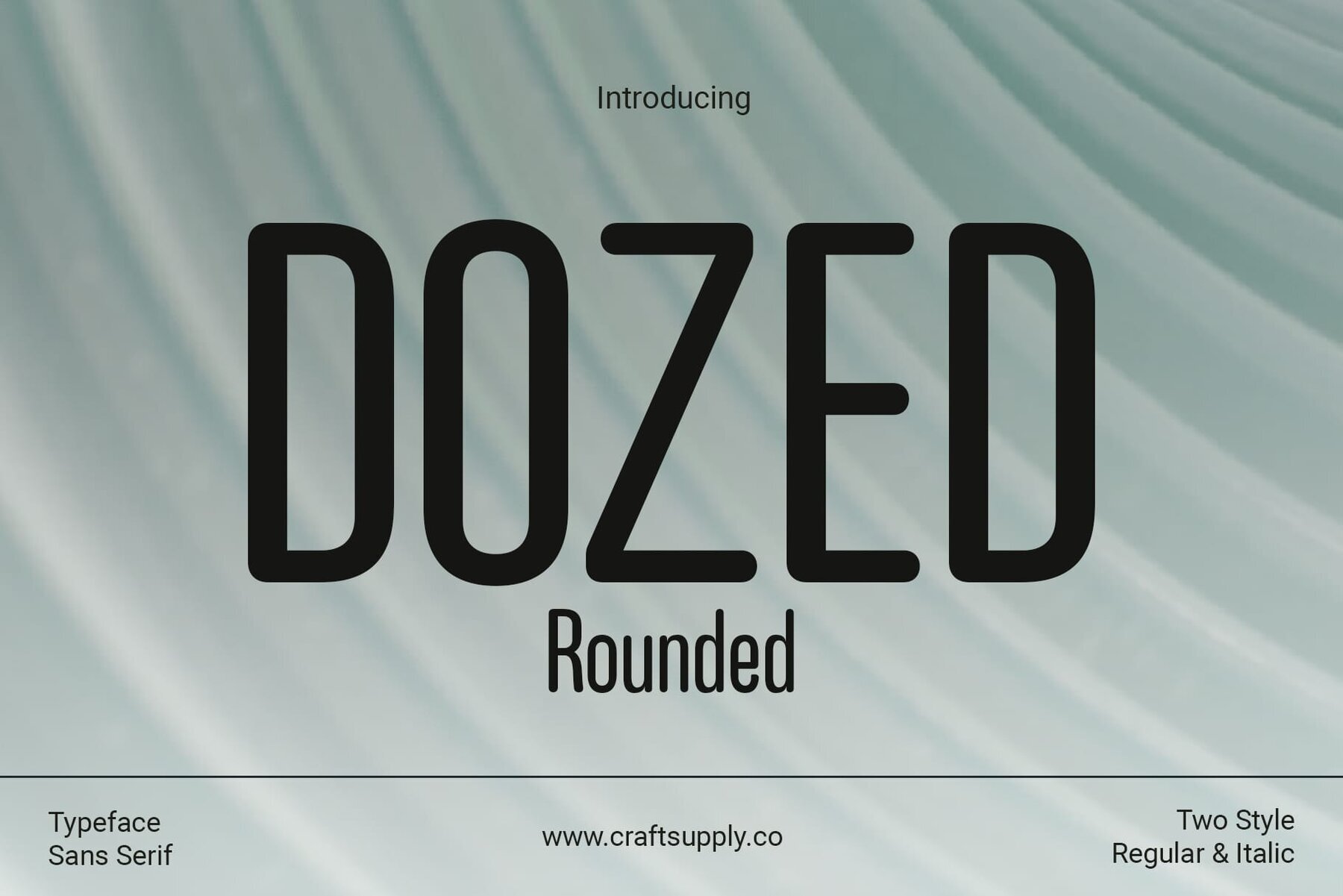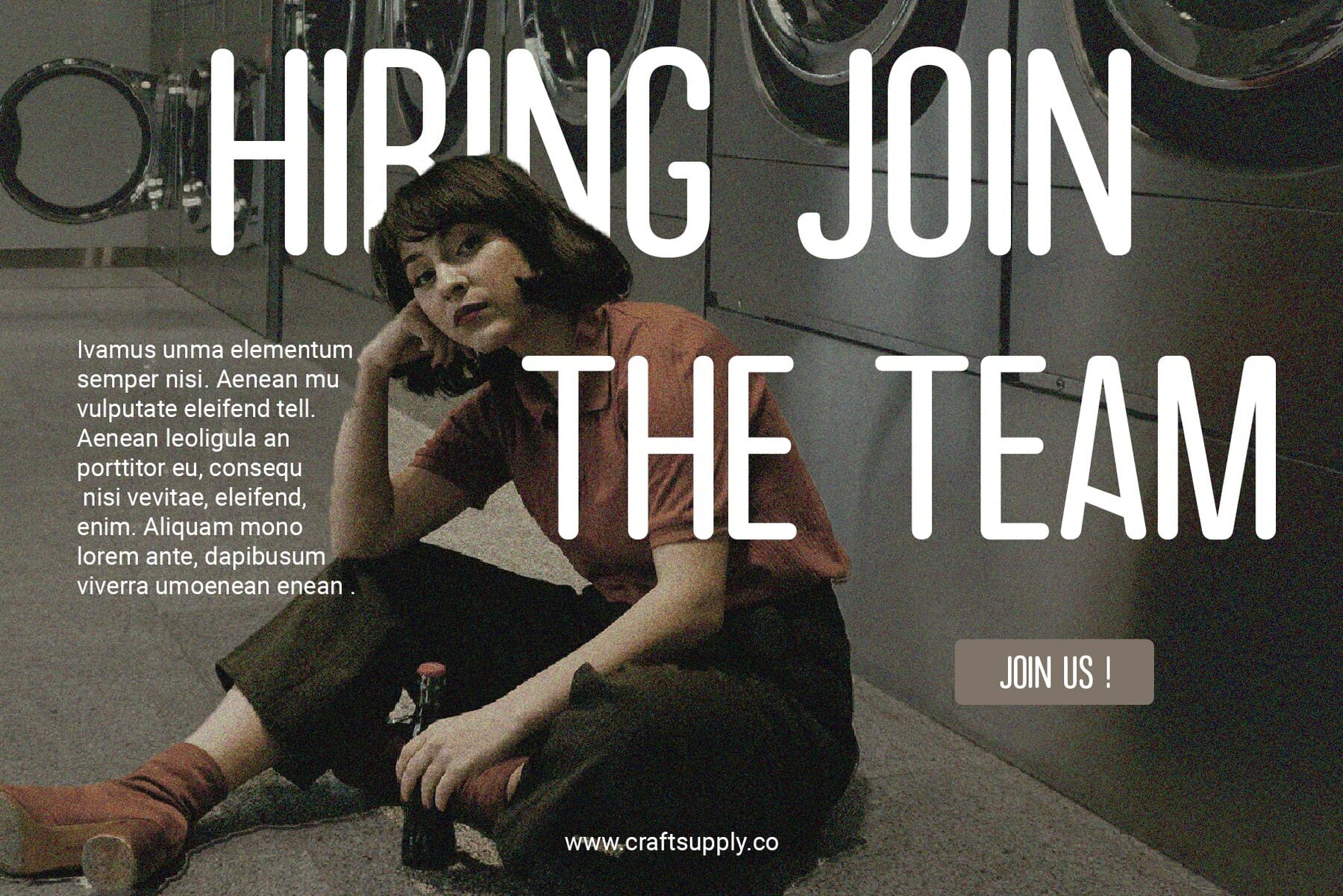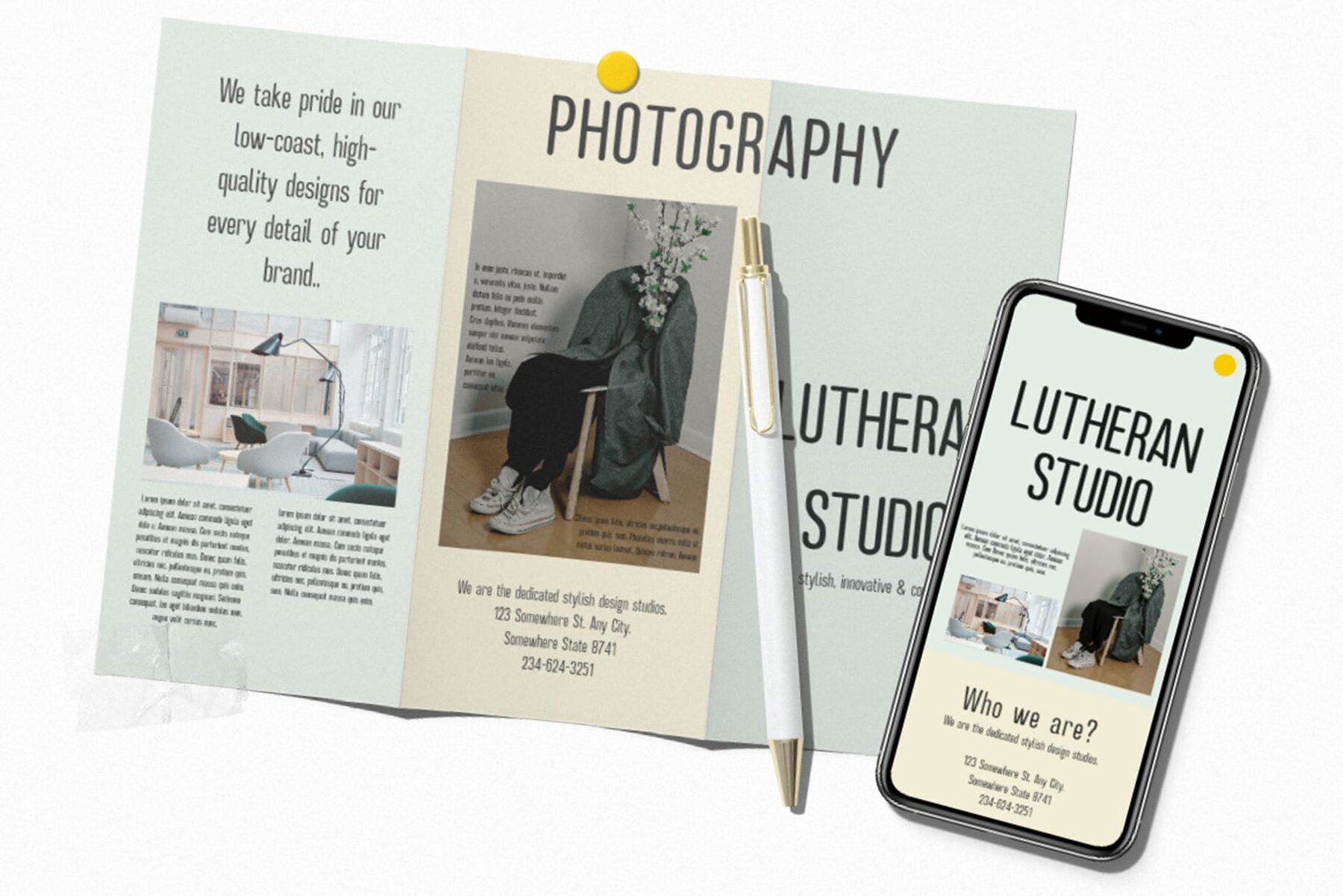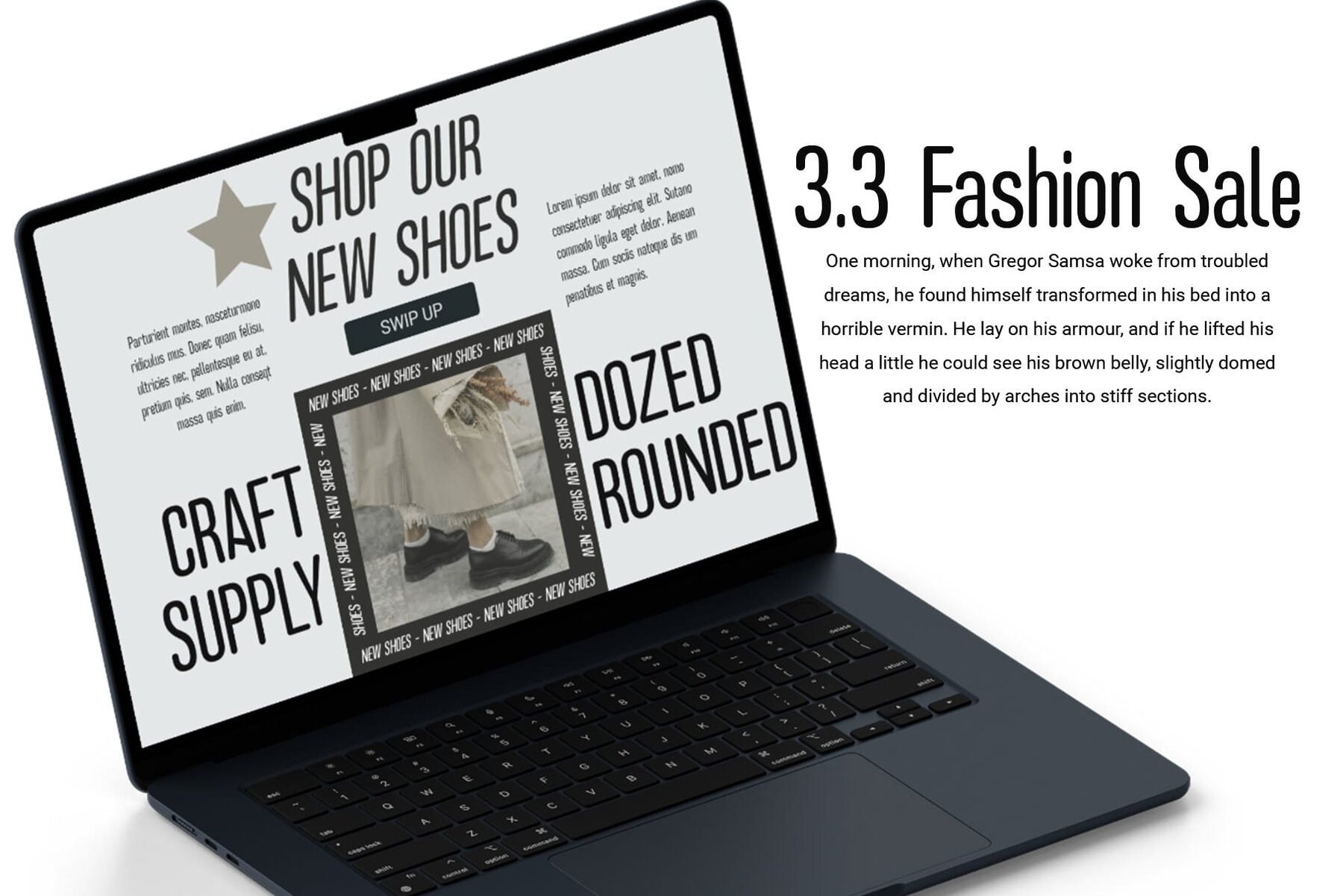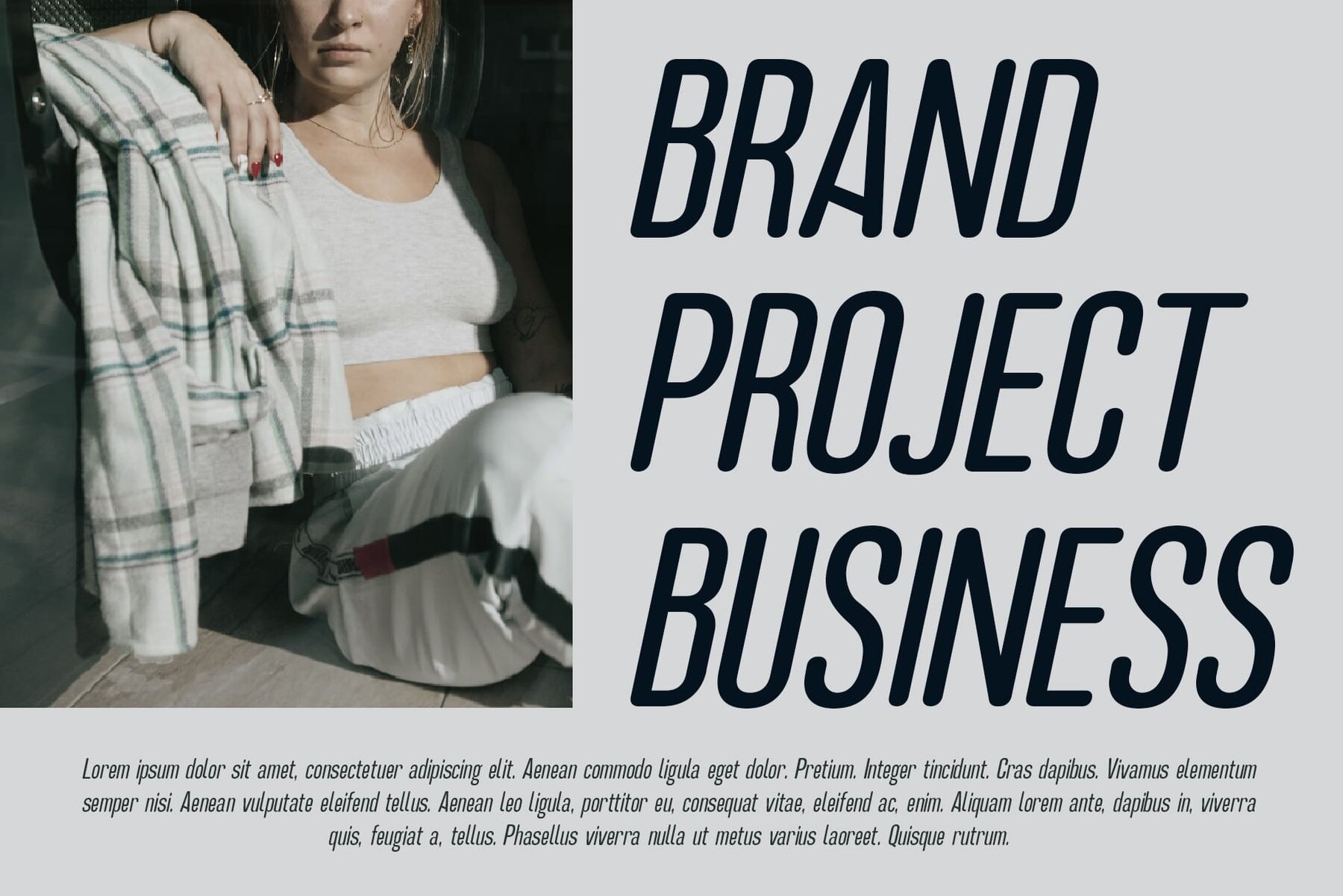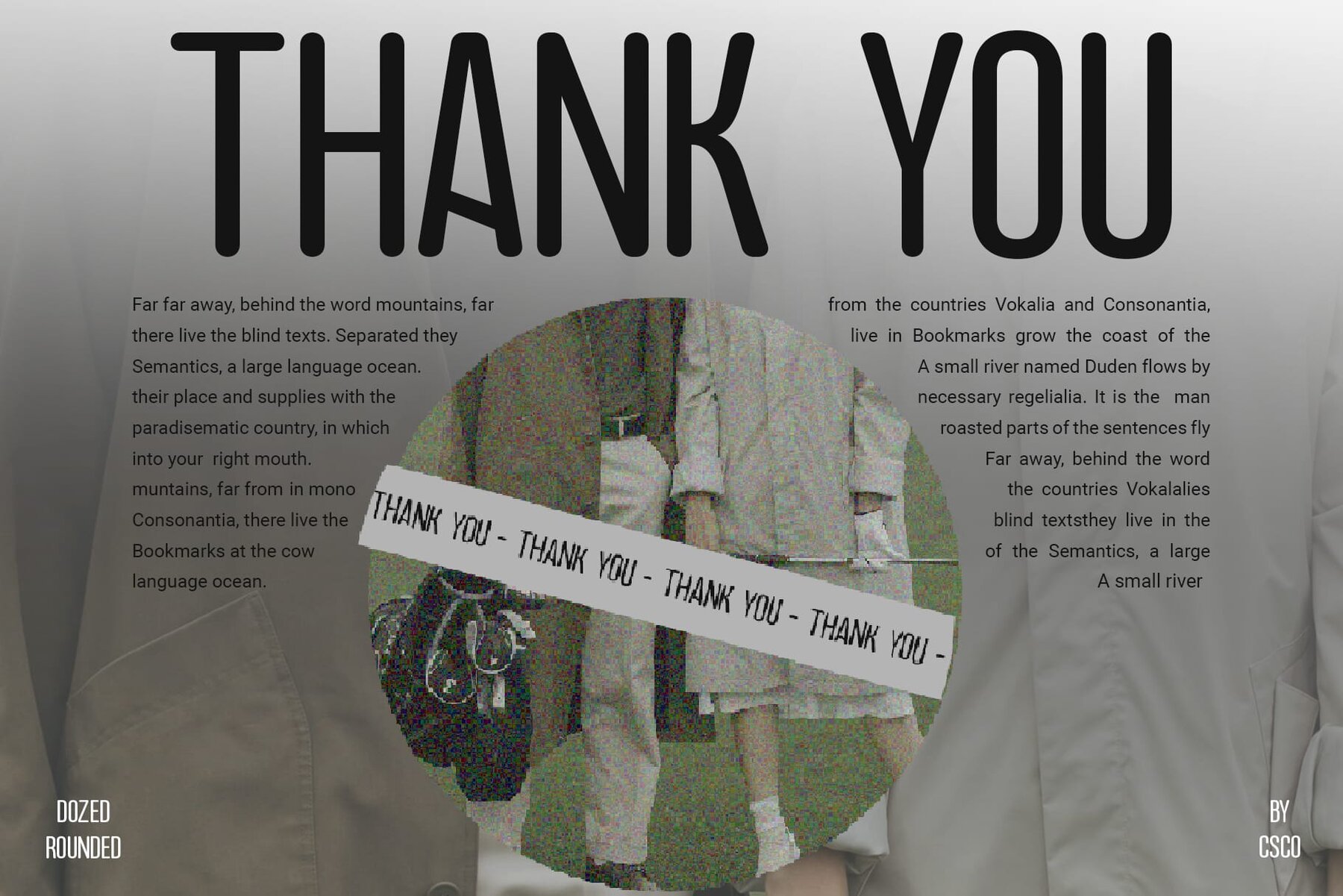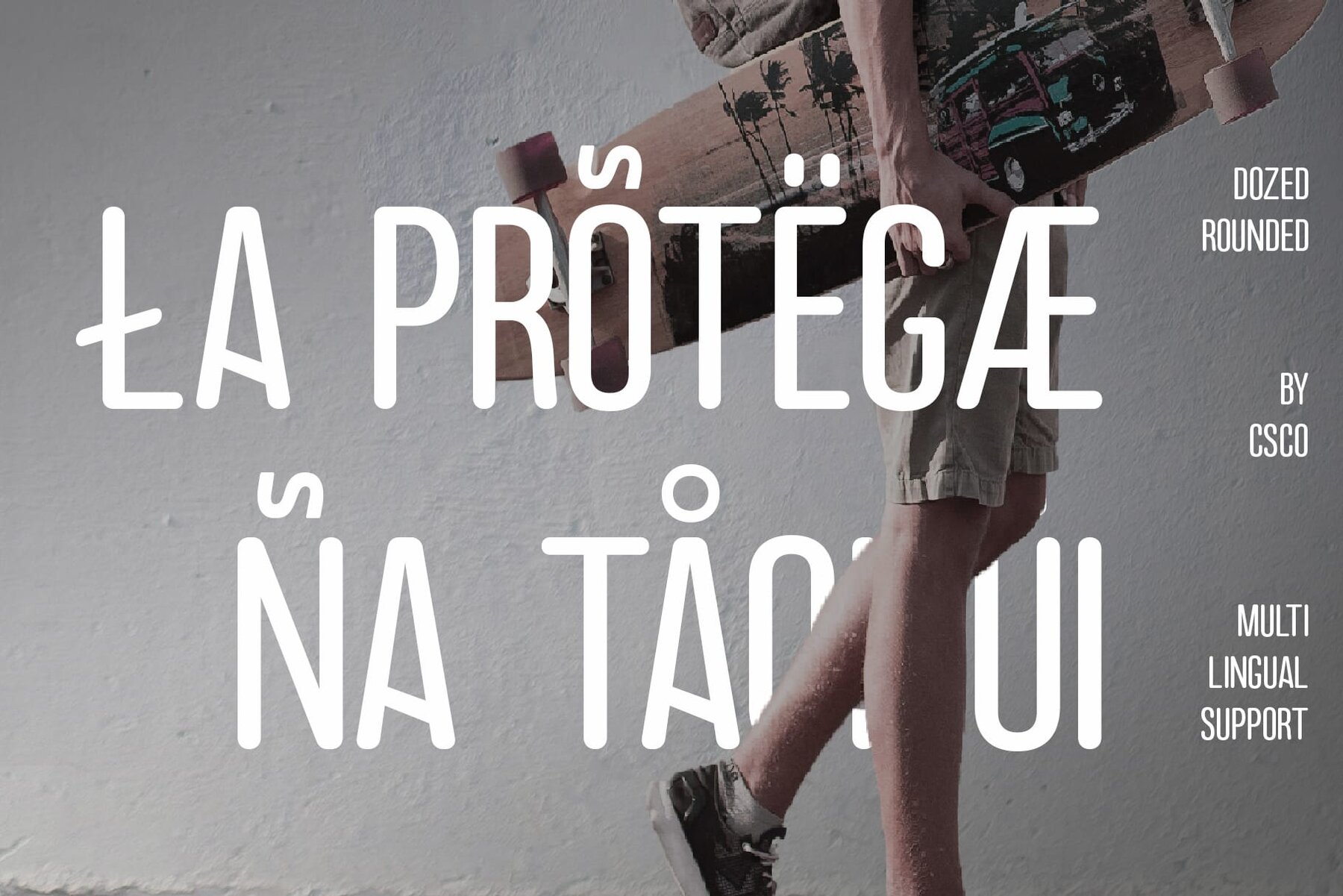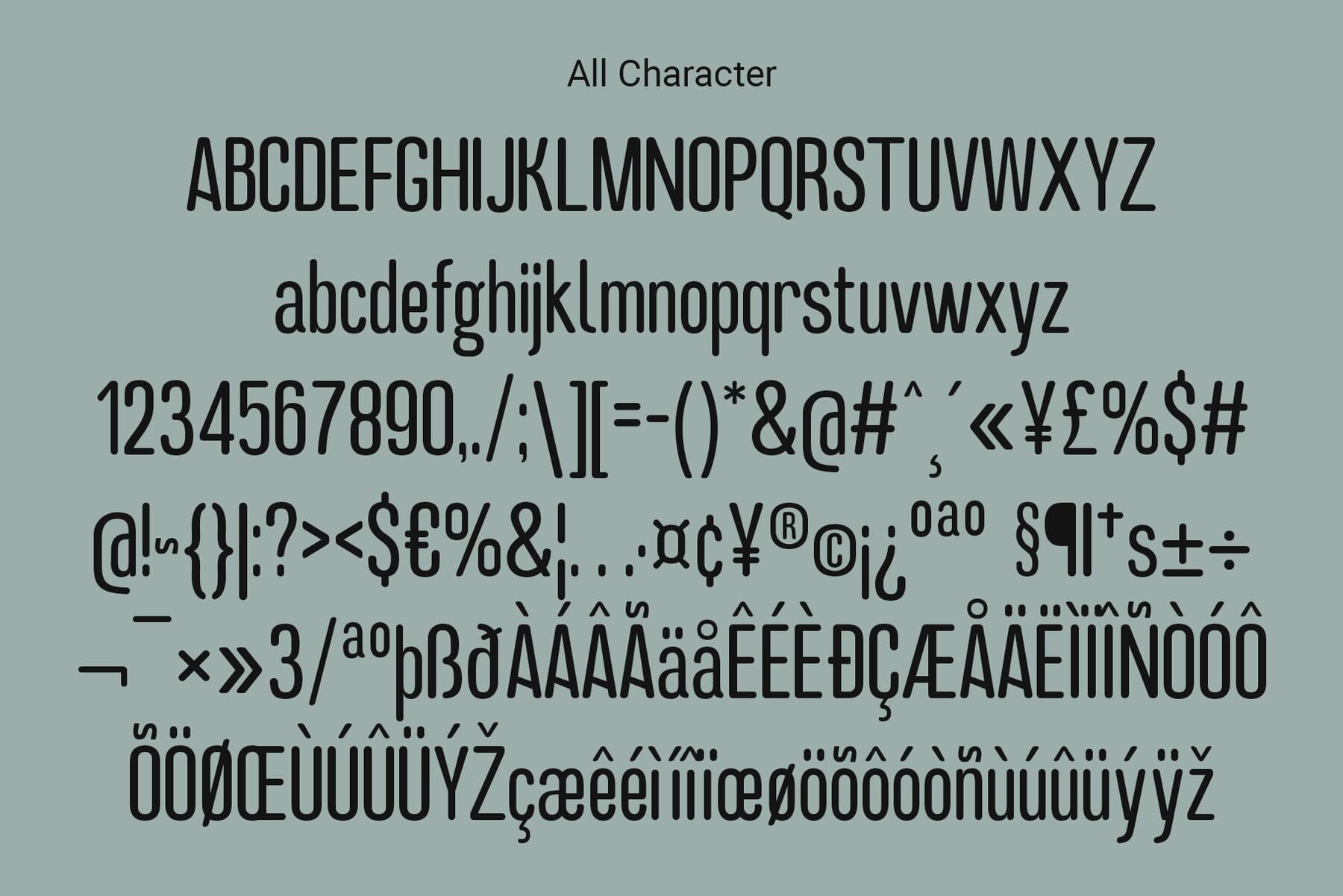
Dozed Rounded Font
Dozed Rounded offers a sleek, low-contrast sans-serif typeface that fits perfectly in modern design projects. Its condensed form ensures efficient use of space without sacrificing readability.Softened Stem Endings for Added Warmth
The rounded stem endings provide a subtle softness, enhancing legibility and adding a friendly, approachable vibe to your designs.
Versatile Application for Various Design Projects
Ideal for branding, web design, and editorial layouts, Dozed Rounded adapts effortlessly to multiple design contexts. Its clean lines and rounded details offer unmatched versatility and adaptability.
Modern Elegance in Every Character
This typeface embodies modern elegance with its low-contrast, condensed style and rounded stem endings. Its readability and versatility make it a must-have for impactful and engaging visual communication.